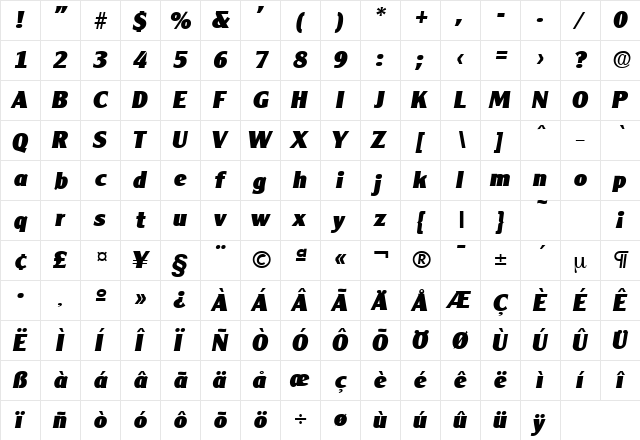
Cleargothic-Serial-Heavy RegularItalic
Design Context for Cleargothic-Serial-Heavy Typeface
Cleargothic-Serial-Heavy has the quiet confidence of well-executed sans-serif typography: versatile, unobtrusive, and dependable at any size. The slanted form adds forward momentum and visual energy.
Font Pairing: Works well alongside a characterful serif or display font that can carry the expressive load while Cleargothic-Serial-Heavy handles the functional copy.
Pro Tip: Use Cleargothic-Serial-Heavy for UI labels, navigation, and short-form body copy where clean legibility is the priority.